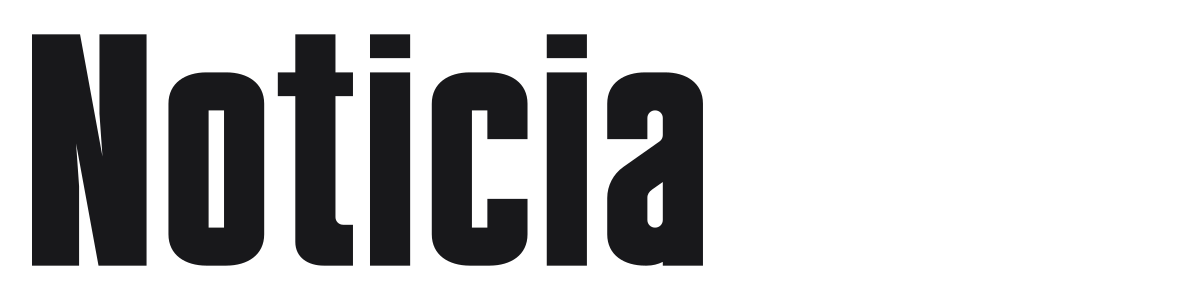
Noticia
by Don Marciano · Website
Noticia is a heavy condensed grotesque sans built for maximum impact in minimum horizontal space. Its tall, compressed proportions and bold weight make it a natural choice for newspaper headlines, posters, and anywhere you need text to command attention. The ink-trap-like notches at stroke junctions add a subtle technical polish to what is otherwise a blunt, powerful design.